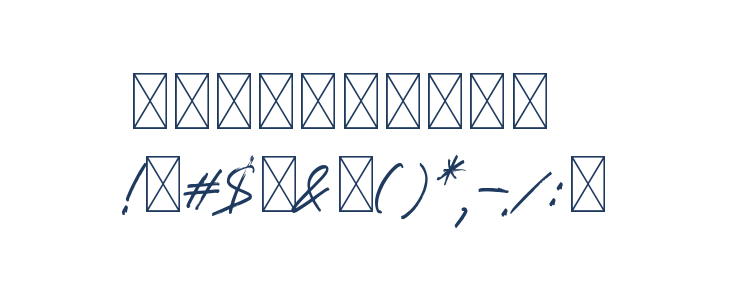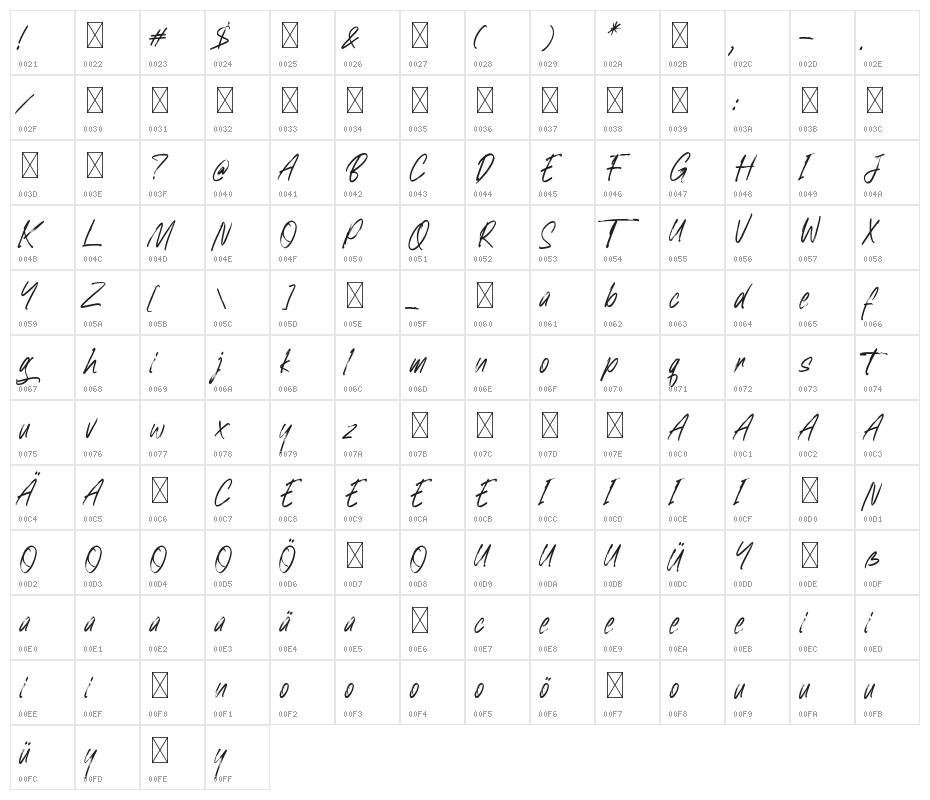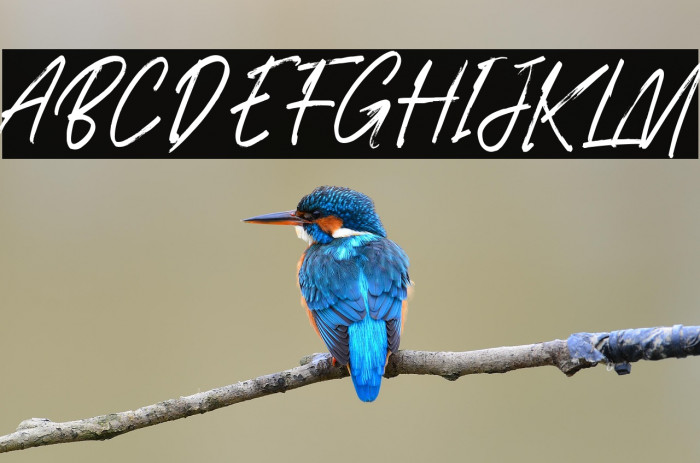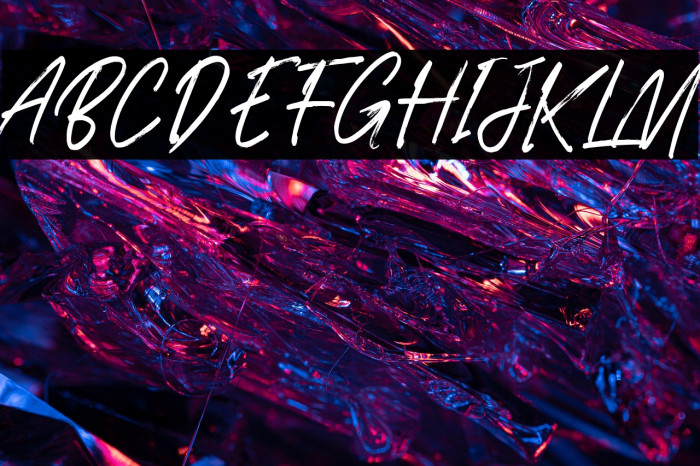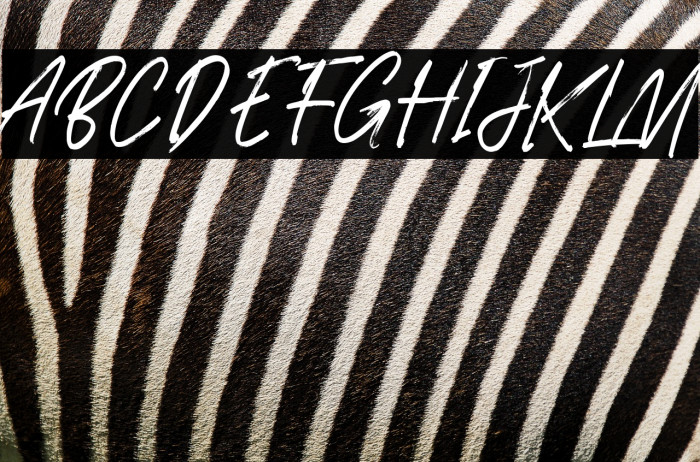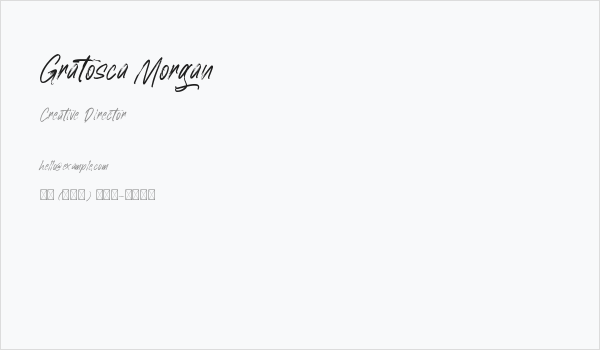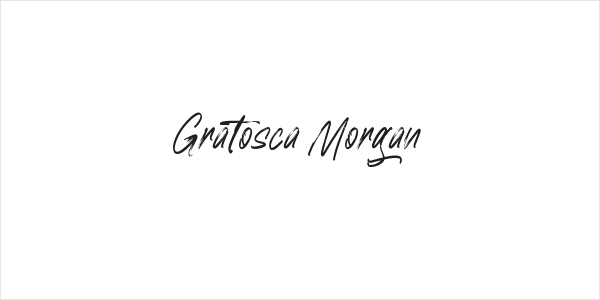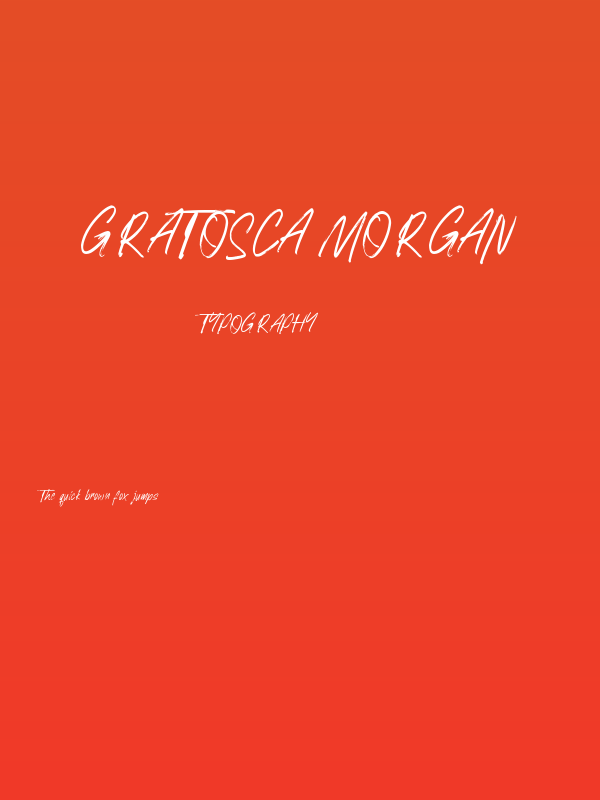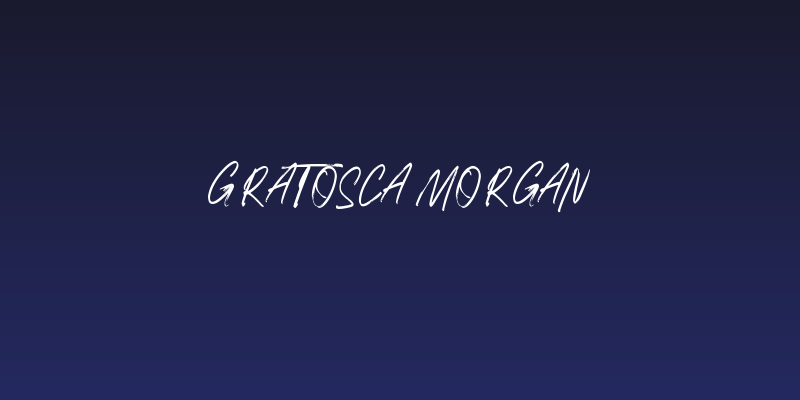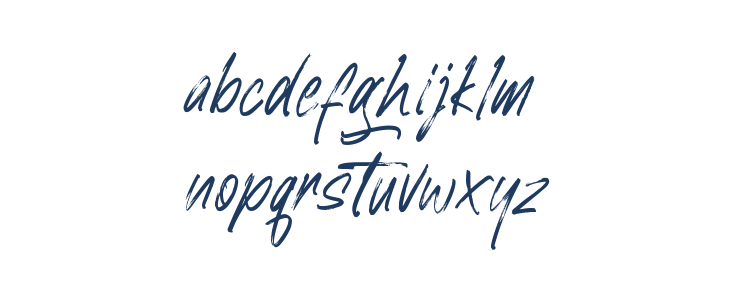
Gratosca Morgan Font
Gratosca Morgan Description
This font exudes a dynamic and energetic style, characterized by its brush script appearance. The letters are crafted with a sense of motion, featuring varying stroke widths that create a lively and expressive look. The uppercase letters are bold and commanding, while the lowercase letters maintain a fluid and connected form. The overall design is reminiscent of hand-painted signage, offering a personal and artistic touch. The font's irregularities and organic flow make it ideal for projects that require a human touch or a sense of spontaneity.